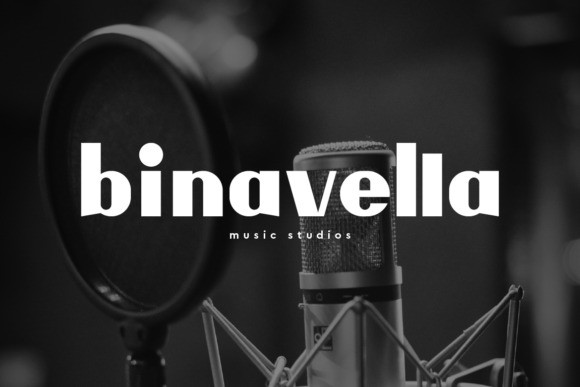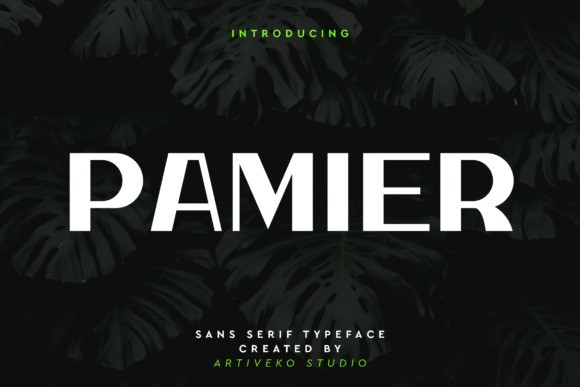
Pamier Font
Pamier Font is a refined sans serif font crafted by Iwan Alwan, featuring clean, balanced letterforms that embody modern simplicity. Perfect for branding, web design, and editorial layouts, Pamier offers a versatile, professional look that enhances readability and style. With multilingual support, ligatures, and alternates, Pamier combines flexibility with a sleek, contemporary aesthetic, making it ideal for projects that demand clarity and sophistication.
This fonts are great for product logo,wedding card logo, clothing brand logo, Vintage design and much more.